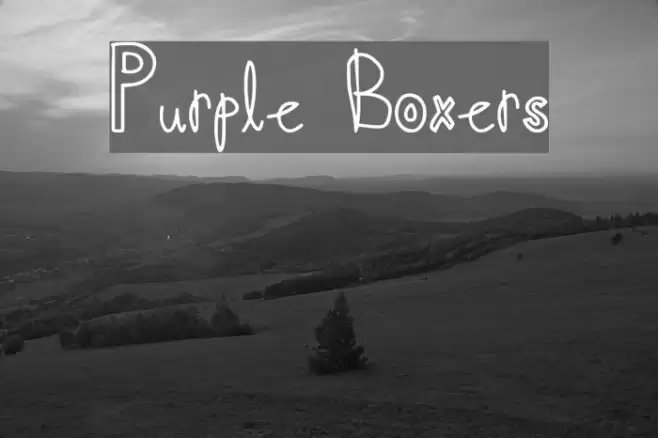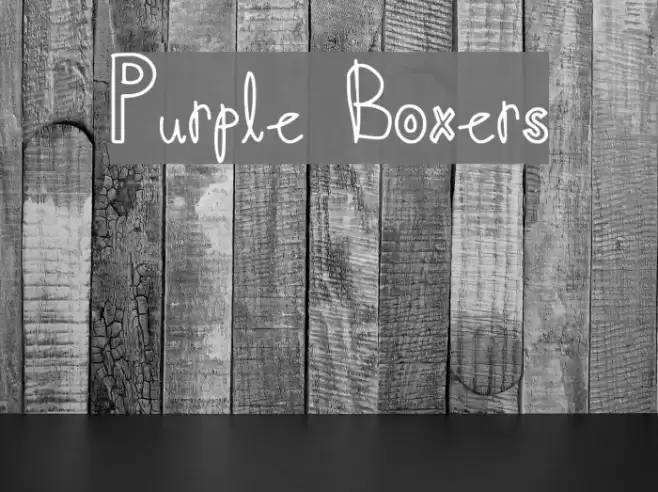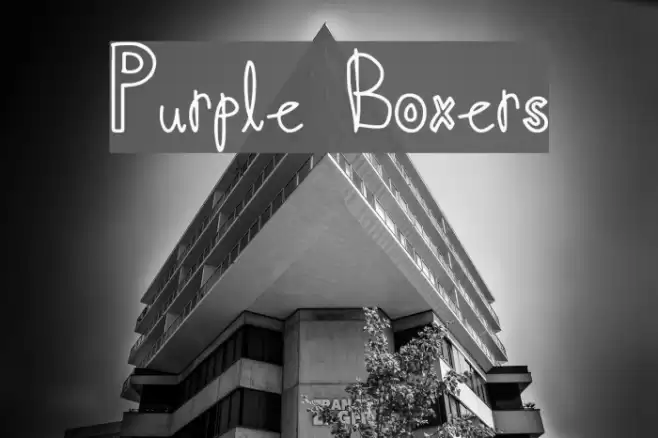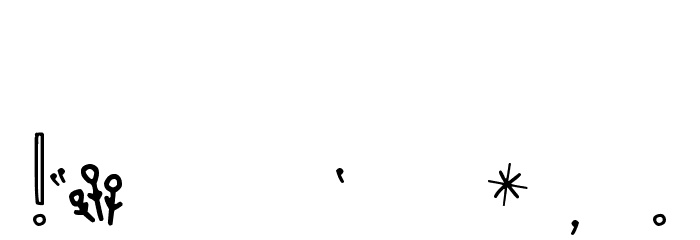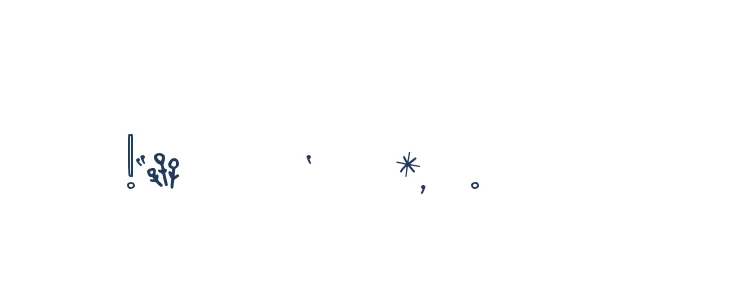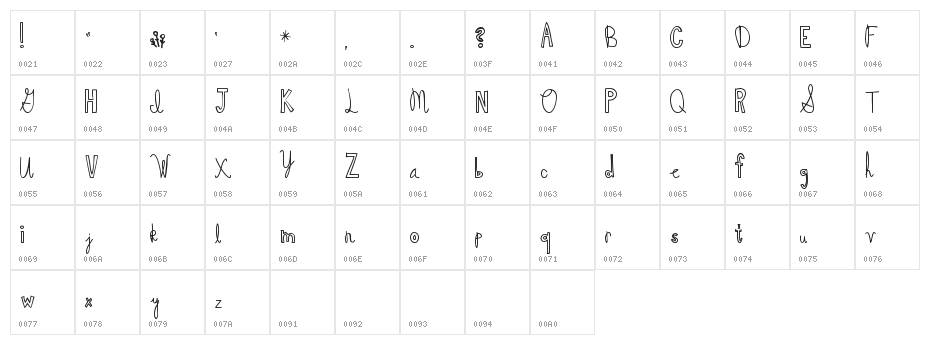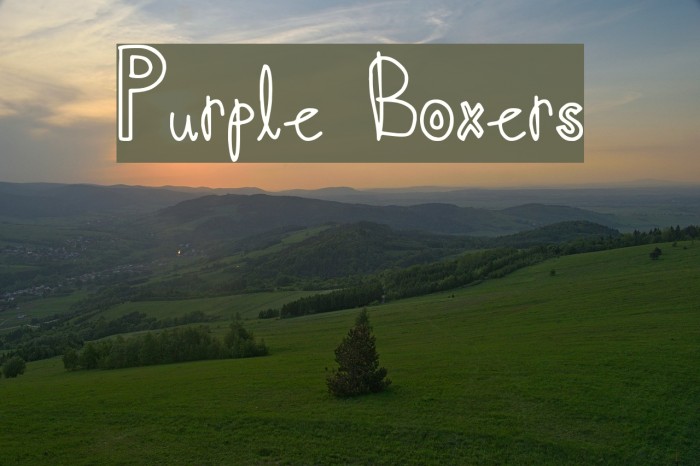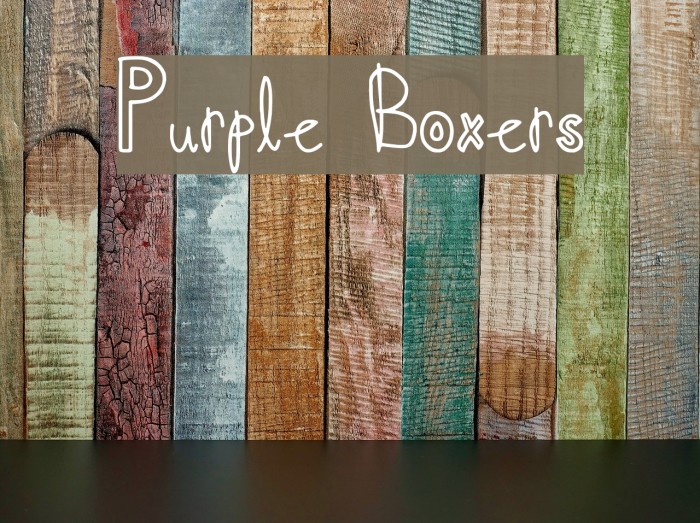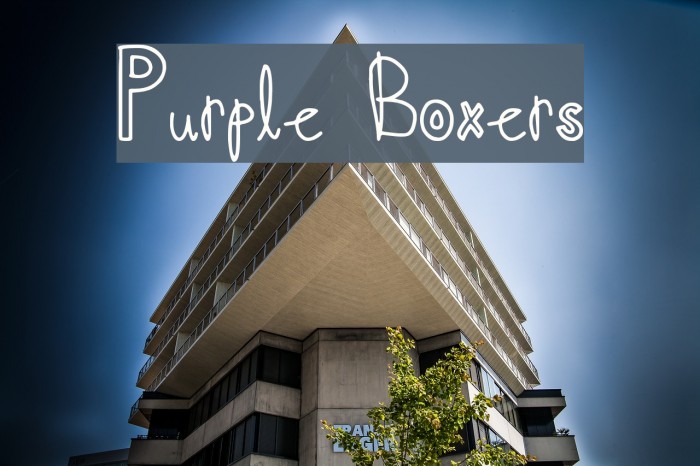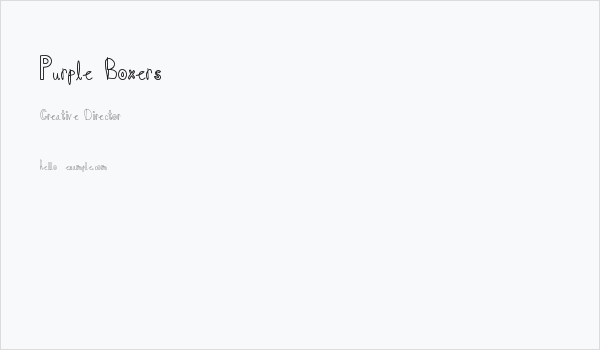
Purple Boxers Font
Purple Boxers Description
This playful and quirky font features a hand-drawn style with a whimsical touch. The uppercase letters are bold and slightly irregular, giving them a unique, artistic flair. The lowercase letters maintain a consistent style, with some characters exhibiting a charming loop or curl. The numbers and special characters follow the same playful design, making them stand out with their distinctive shapes. The overall appearance is casual and fun, perfect for projects that require a lighthearted and creative vibe.
A playful, hand-drawn font with a whimsical and artistic style from Handwritten fonts.